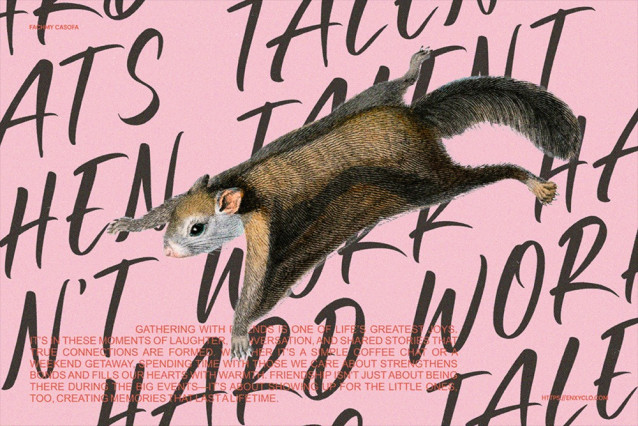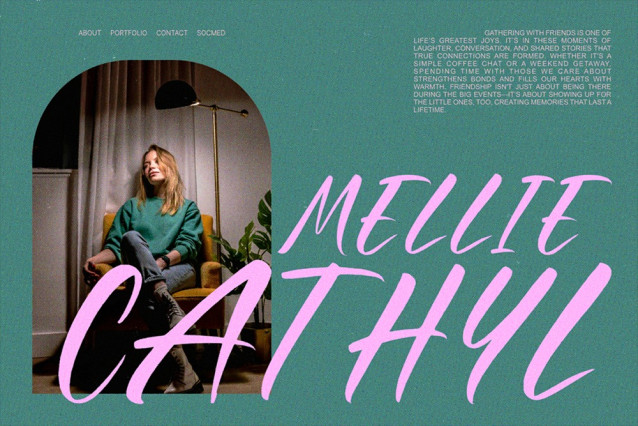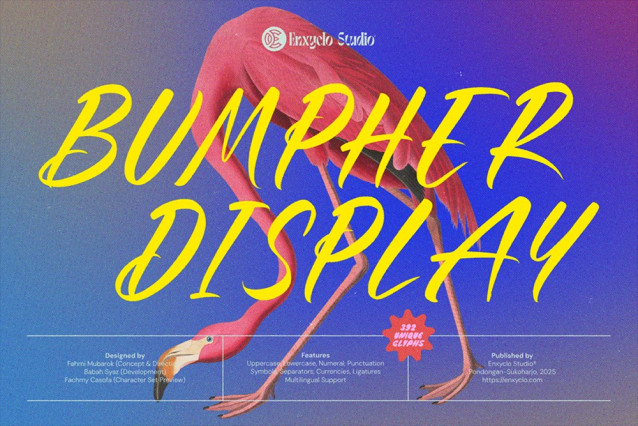
Bumpher Script Font
Bumpher Script Font is a vibrant, energetic script font designed to bring a bold personality to your creative projects. Inspired by retro hand-lettered signs and modern brush calligraphy, this font fuses nostalgic flair with contemporary aesthetics. Each letter is crafted with sweeping strokes and expressive curves, perfect for making your headlines pop and your branding stand out.